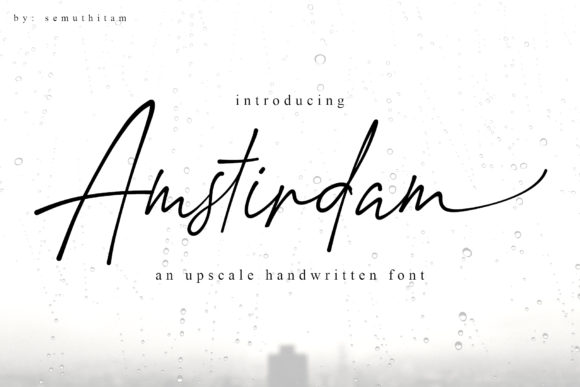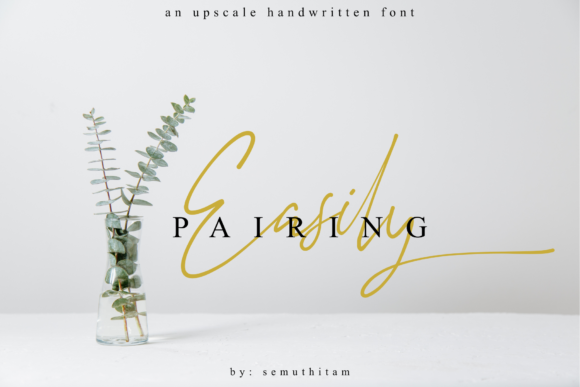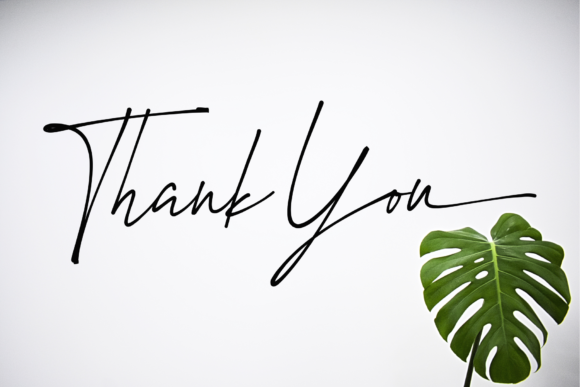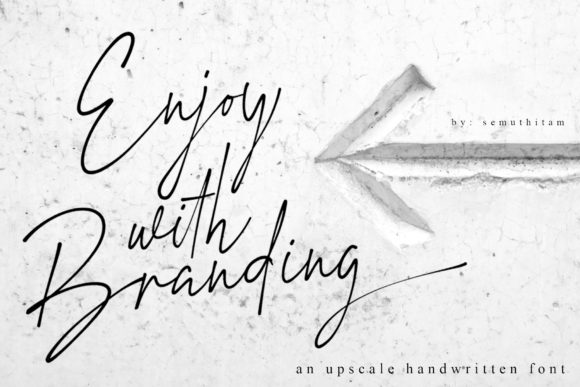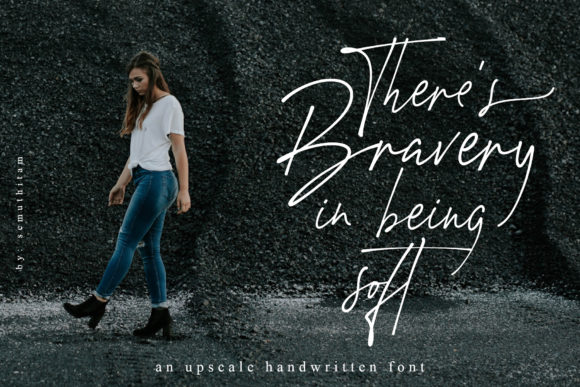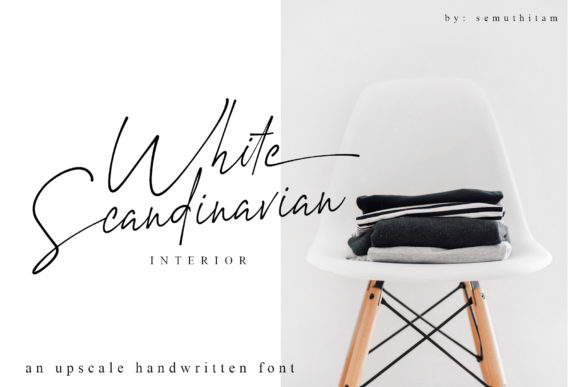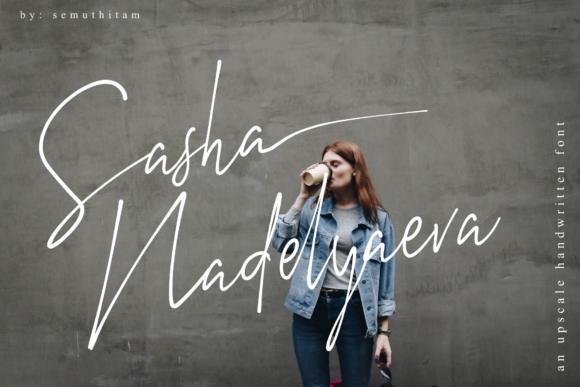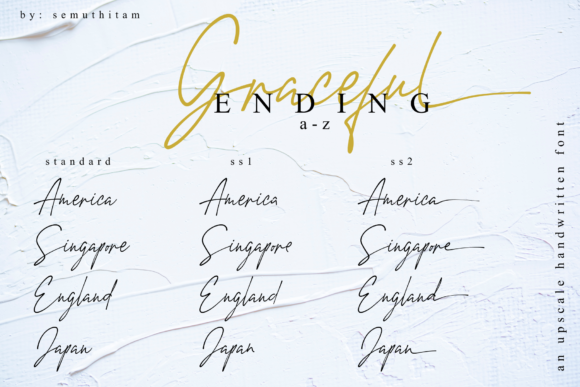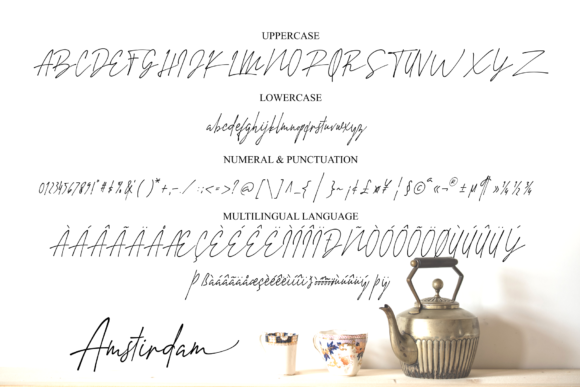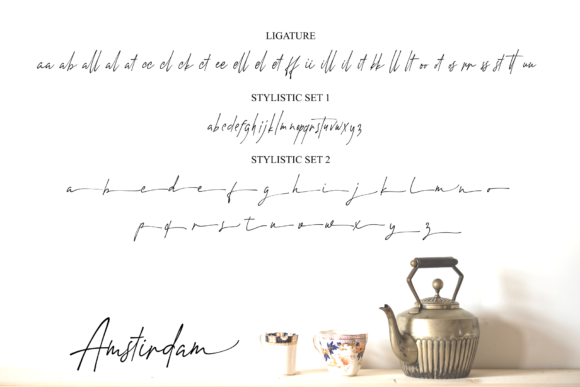
Amstirdam Font
About Amstirdam Font
Amstirdam is a stunning and free-flowing script that features a bouncy baseline. It radiates authenticity and will add convey any message with confidence and charm.